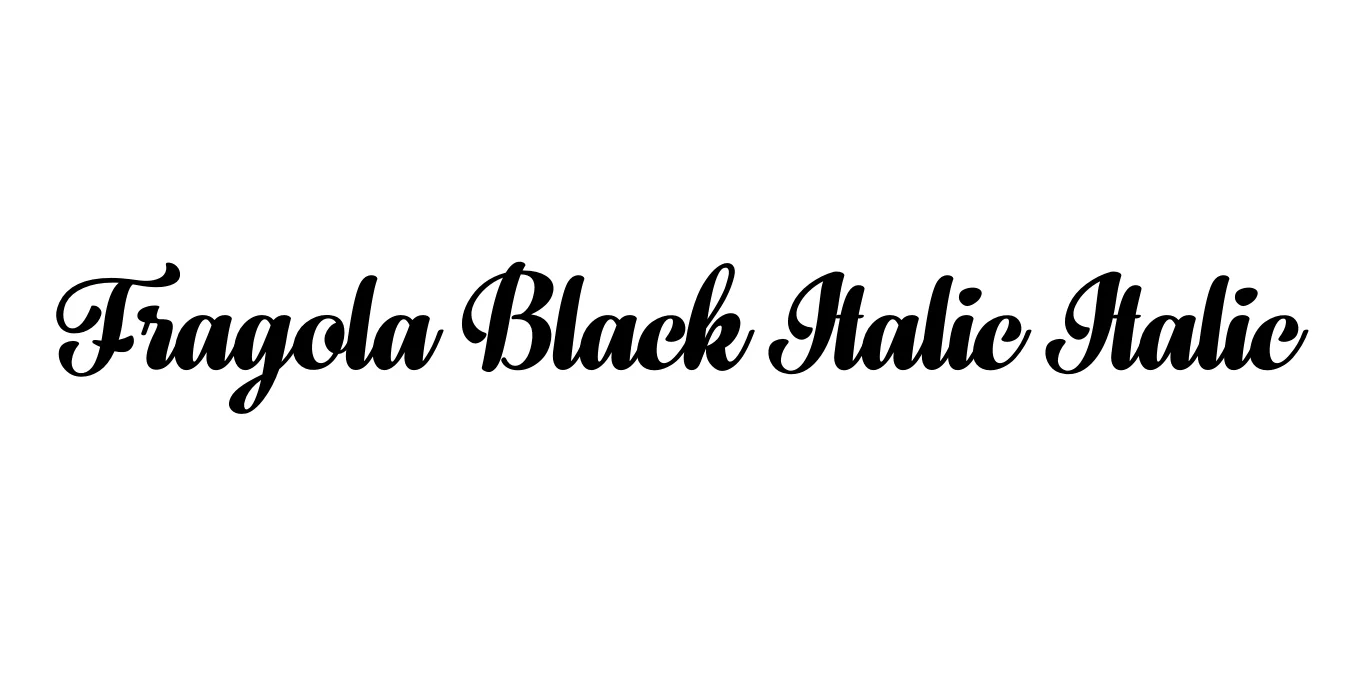
Fragola Black Italic Italic
Designed by Francesco Canovaro
Fragola Black Italic is a vibrant and energetic brush script typeface designed by Francesco Canovaro for Zetafonts. This weight specifically focuses on the heavy, succulent strokes of hand-painted signage, offering a high-contrast look that mimics the natural flow of a loaded paint brush. The design strikes a perfect balance between nostalgic retro aesthetics and modern digital precision, making it a standout choice for designers looking for personality and warmth.
The structural integrity of Fragola lies in its rhythmic slant and fluid terminal flourishes, which provide a sense of motion and spontaneity. As part of a larger script family, the Black Italic variant is particularly effective for display purposes where legibility must meet expressive character. It is widely used in the food and beverage industry, as well as for lifestyle branding that requires a human touch and an approachable, artisanal feel.
Fragola Black Italic Italic Best Uses
Creating vibrant and memorable logos for food, beverage, and lifestyle brands.
Perfect for organic product labels, artisanal food packaging, and craft goods.
Eye-catching headlines for event posters, menus, and social media promotional graphics.
Dynamic display text for high-impact marketing campaigns and billboards.